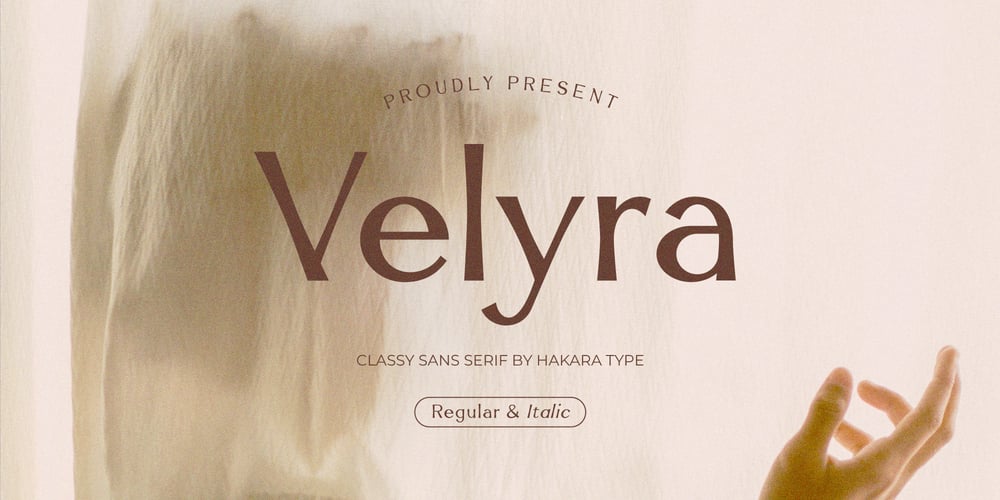
Velyra Font Family was designed by Kanisius Adi Klau and published by Hakara Type. Velyra contains 2 styles and family package options. Velyra font is a humanist sans serif display font with elegant shape, making it luxury and eye-catching. Velyra comes in regular and italic versions. Thus Velyra could be an ideal choice for various design projects, from branding, advertising, logos, headlines, posters and others.